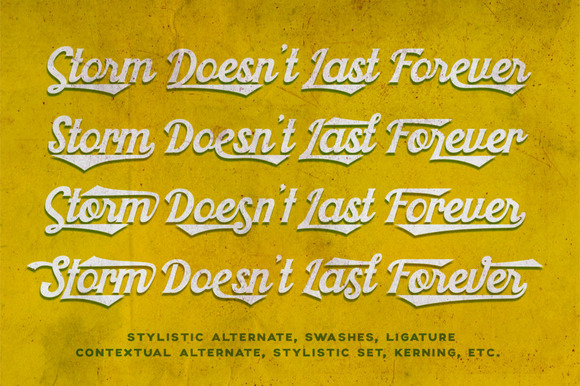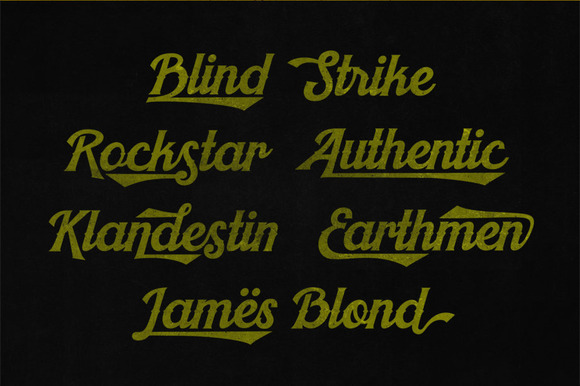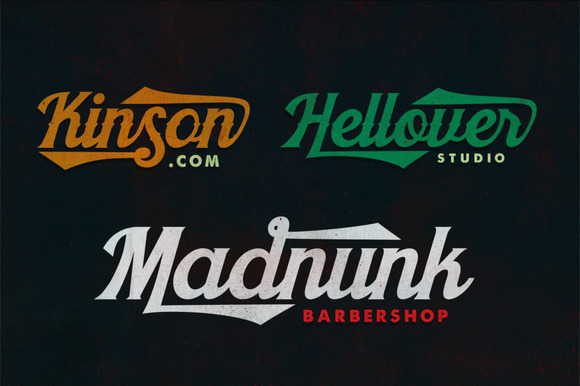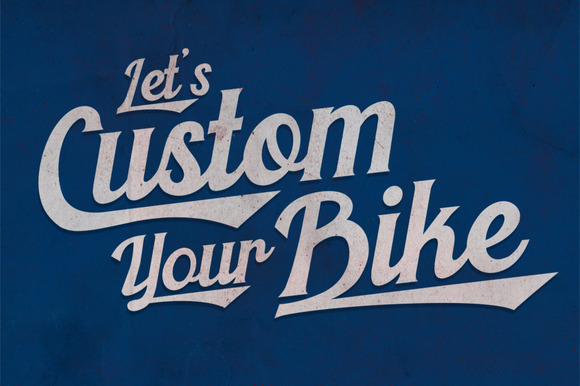
Introduction to Khadija Spurs Font Font
Fonts play a crucial role in design, and the Khadija Spurs Font font is a typeface that brings both character and versatility to any project. Whether you’re working on a branding project, a website, or a print design, the Khadija Spurs Font font offers a unique style that can elevate your work.
| 📌 Font Name | Khadija Spurs Font |
| 👤 Author | Mikrojihad Typefounder |
Khadija Script is a bold, strong and powerful script font with a touch of a retro feeling.
Key Features of Khadija Spurs Font Font
Why Choose Khadija Spurs Font Font?
The Khadija Spurs Font font is more than just a typeface – it’s a design tool that helps you communicate your message with style and clarity. Its unique character set and versatile design make it suitable for a wide range of applications, from elegant invitations to bold headlines.
With its carefully crafted letterforms and balanced proportions, the Khadija Spurs Font font ensures readability and visual appeal across all mediums.
What makes Khadija Spurs Font font special?
The Khadija Spurs Font font stands out with its unique design, exceptional readability, and versatility across various design applications.